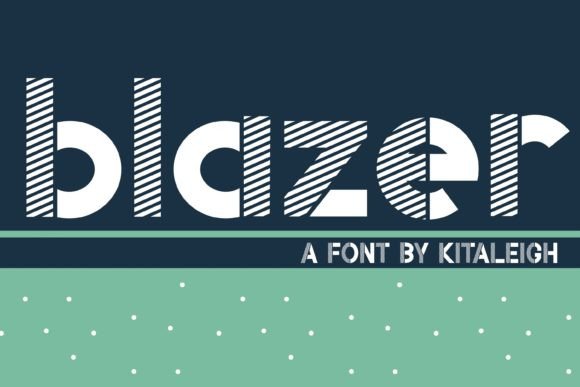
Introducing Blazer: The Bold and Modern Font That’s About to Take Your Designs to the Next Level 🚀
I’ll never forget the time I was working on a project for a client who wanted a bold, eye-catching font that would make their brand stand out. I scoured the internet, tried out countless fonts, but nothing seemed quite right. That was until I stumbled upon Blazer, a game-changing display font that’s been a staple in my design toolkit ever since. In this article, I’ll share my love for Blazer, its features, and how to make the most of it in your designs.
What I Love About Blazer 💕
Blazer is more than just a font – it’s a statement piece. Here are some things that make it special:
- ✨ Unique diagonal stripes: Blazer’s distinctive style adds a fresh and stylish look to any project.
- ✅ Geometric shapes and dynamic lines: These elements bring energy and a sense of movement to your designs.
- 💥 Perfect for headlines and branding: Blazer is designed to make an impact, making it ideal for titles, logos, and eye-popping graphics.
The Honest Review: What You Need to Know 🤔
While Blazer is an amazing font, it’s not without its quirks. Here are a few things to keep in mind:
- ⚠️ Legibility at small sizes: Blazer’s bold style can be overwhelming at smaller font sizes. Use it for headlines and titles for the best results.
- 🤔 Limited use in body text: While Blazer is stunning, it’s not designed for long-form text. Stick to using it for emphasis and headlines.
The Backstory: Designer Inspiration 🔥
Blazer was designed with the goal of creating a font that would make a bold statement. Inspired by the dynamic energy of city streets and the geometric shapes of modern architecture, Blazer’s creator aimed to craft a font that’s both stylish and attention-grabbing.
Frequently Asked Questions 🤔
| What type of projects is Blazer best suited for? | Blazer is perfect for headlines, branding, logos, posters, and any design that needs a bold, eye-catching font. |
| Can I use Blazer for body text? | While Blazer is stunning, it’s not designed for long-form text. Stick to using it for emphasis and headlines. |
| Is Blazer available in different weights or styles? | Blazer comes in a single bold style, but its unique features and OpenType capabilities make it versatile for various design applications. |
Blazer is more than just a font – it’s a design statement. With its bold style, unique diagonal stripes, and geometric shapes, it’s sure to elevate your designs and leave a lasting impression. Whether you’re a designer, crafter, or creative hobbyist, Blazer is an excellent addition to your toolkit.